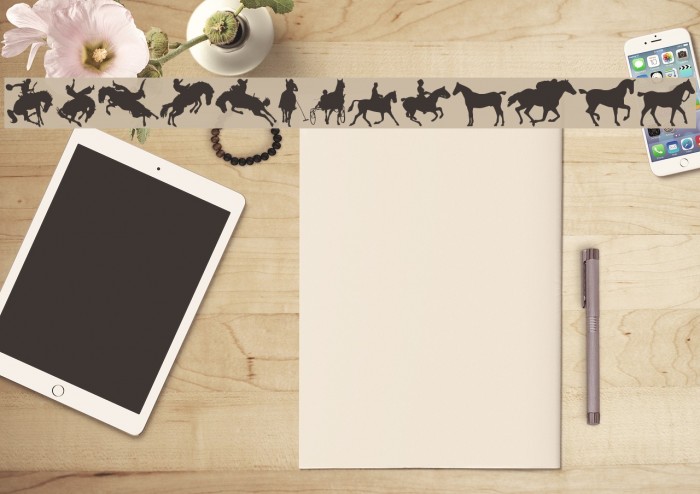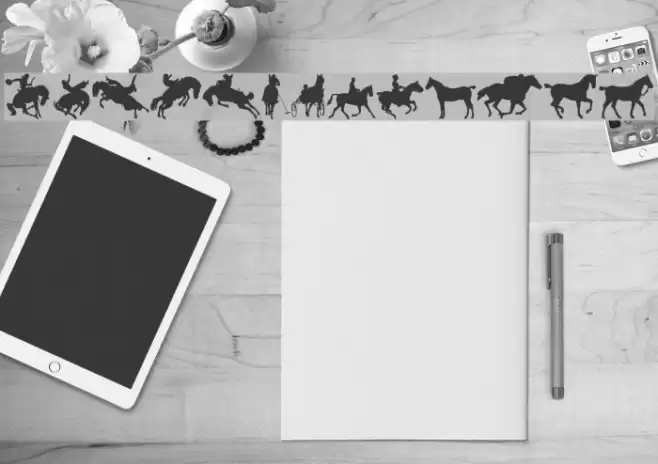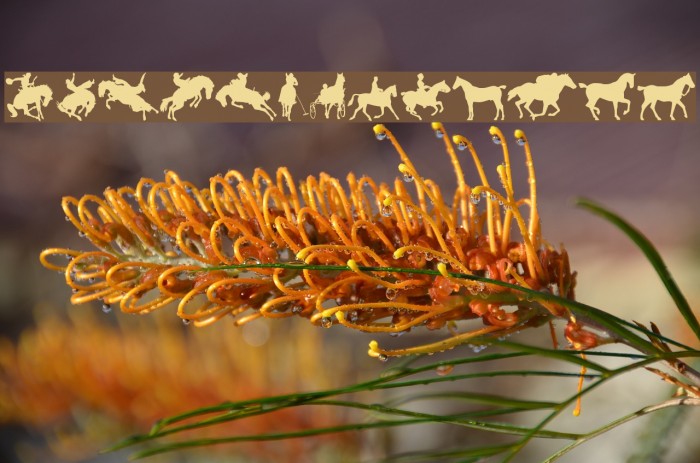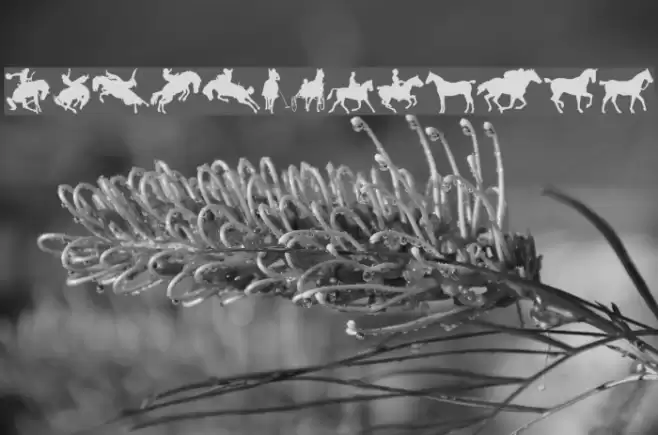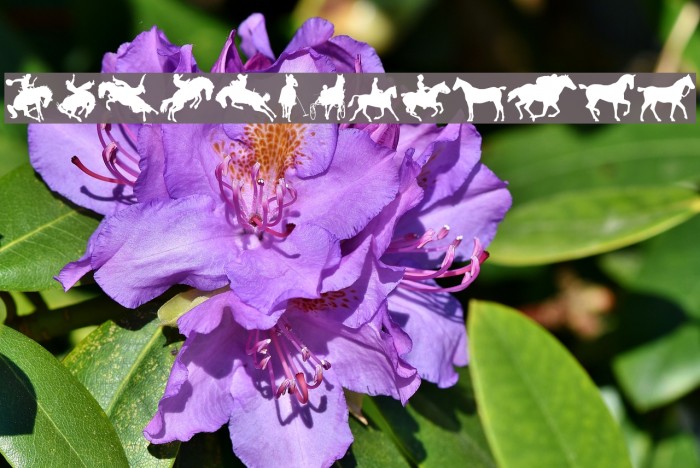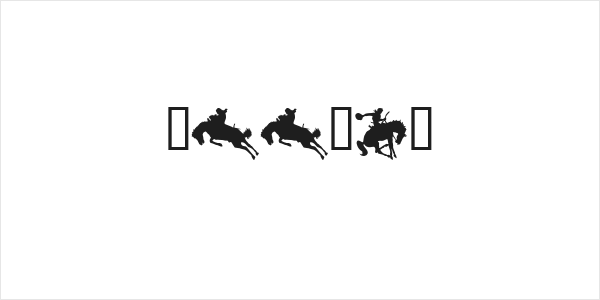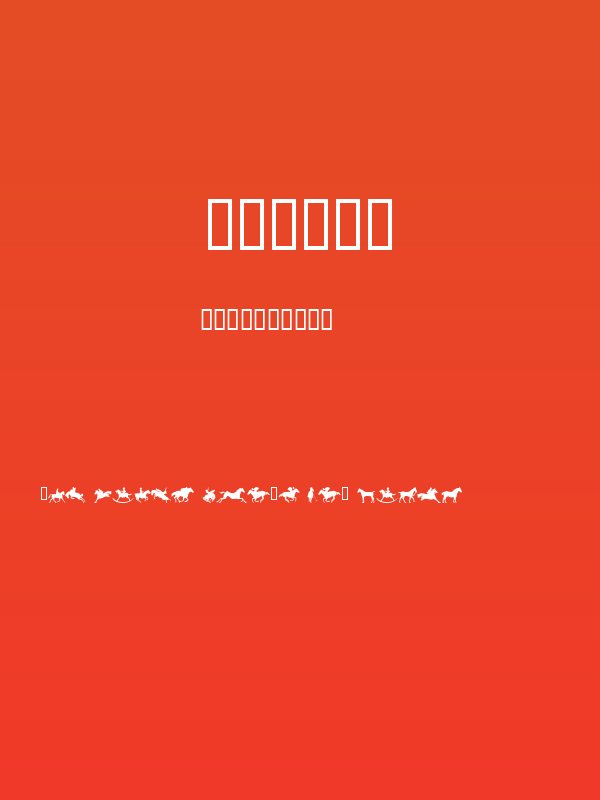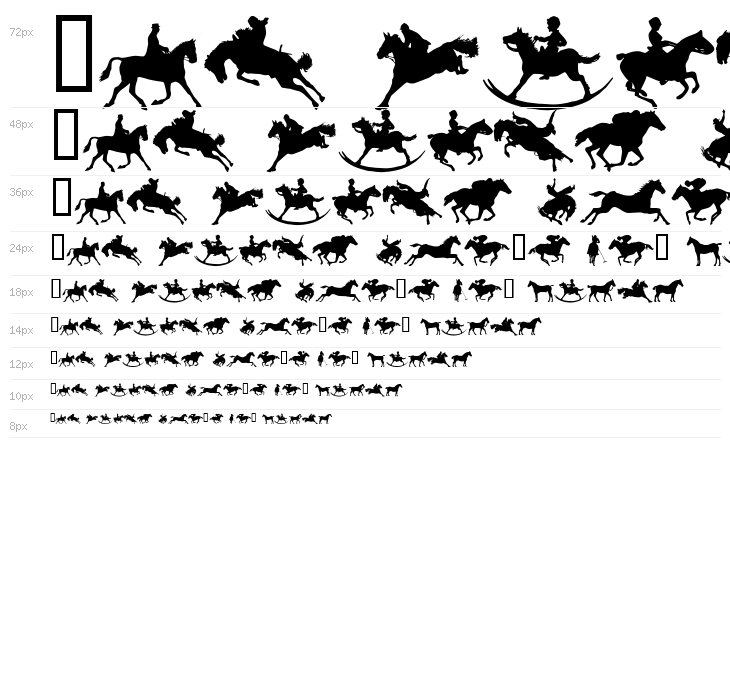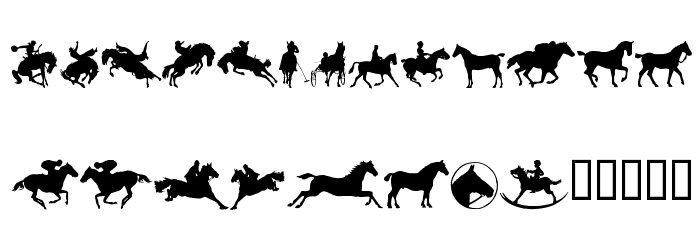
YeeHaw Font
YeeHaw Description
A decorative dingbat font featuring silhouettes of cowboys, horses, rodeo scenes, and western motifs. The glyphs are detailed, high-contrast black shapes with no traditional alphanumeric characters, focusing entirely on thematic illustrations.
| Overall Style | Decorative, Western, Thematic |
| Use Case | Decorative elements, Themed graphics, Not suitable for text |
| Proposed Projects | Event posters, party invitations, themed decor, scrapbooking, and western branding. |